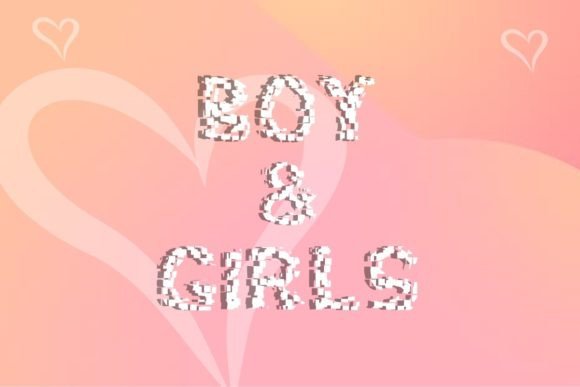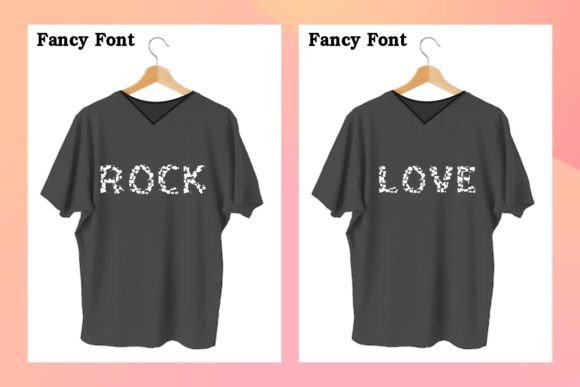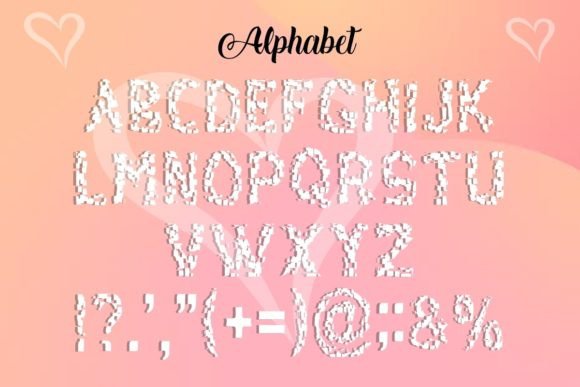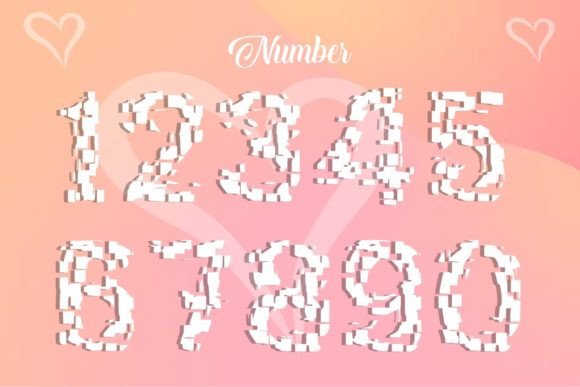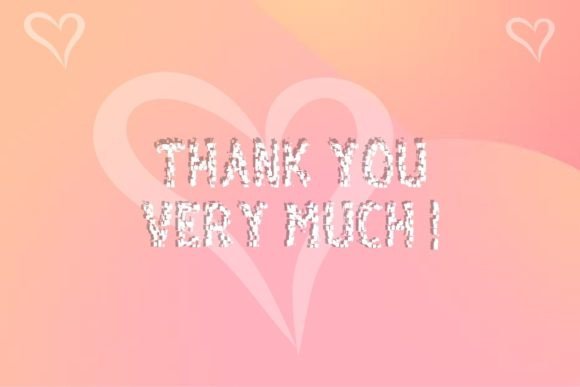
Introducing Ambyar Font: The Ultimate Textured Display Font for Creative Projects
Are you tired of using the same old fonts for your creative projects? Look no further than Ambyar Font, a unique and fun textured display font that’s perfect for adding a touch of whimsy to your designs. With its quirky personality and versatility, Ambyar Font is ideal for a wide range of applications, from t-shirts and stickers to posters, banners, and headlines.
What Makes Ambyar Font So Special?
Ambyar Font is a one-of-a-kind font that’s sure to make your designs stand out from the crowd. Its textured display style gives it a tactile, hand-crafted feel that’s perfect for creating eye-catching headlines and titles. The font’s whimsical and quirky personality makes it perfect for projects that require a bit of humor and playfulness.
One of the best things about Ambyar Font is its versatility. It’s perfect for a wide range of applications, including:
- T-shirts and apparel: Add a touch of personality to your t-shirts, hoodies, and other apparel with Ambyar Font.
- Stickers and labels: Create eye-catching stickers and labels that are sure to grab attention.
- Posters and flyers: Use Ambyar Font to create bold and eye-catching posters and flyers that will grab attention.
- Banners and signs: Add a touch of whimsy to your banners and signs with Ambyar Font.
- Headlines and titles: Use Ambyar Font to create bold and eye-catching headlines and titles for your blog posts, articles, and other written content.
Why Designers and Crafters Love Ambyar Font
Designers and crafters love Ambyar Font for its unique and playful personality. Here are just a few reasons why:
- Easy to read: Despite its textured style, Ambyar Font is easy to read, even at small sizes.
- Highly versatile: Ambyar Font can be used for a wide range of applications, from digital designs to print projects.
- Unique and eye-catching: Ambyar Font is sure to make your designs stand out from the crowd.
Tips for Using Ambyar Font
Here are a few tips for using Ambyar Font in your designs:
- Use it sparingly: Ambyar Font is perfect for headlines and titles, but it can be overwhelming if used too much. Use it sparingly to add a touch of whimsy to your designs.
- Experiment with colors: Ambyar Font looks great in a variety of colors, so don’t be afraid to experiment and find the perfect color for your design.
- Pair it with other fonts: Ambyar Font pairs well with a variety of other fonts, so try pairing it with a clean sans-serif font for a bold and eye-catching look.
Ambyar Font is a unique and fun textured display font that’s perfect for adding a touch of whimsy to your designs. With its quirky personality and versatility, it’s ideal for a wide range of applications, from t-shirts and stickers to posters, banners, and headlines. Whether you’re a designer or crafter, Ambyar Font is sure to become a favorite in your font collection.